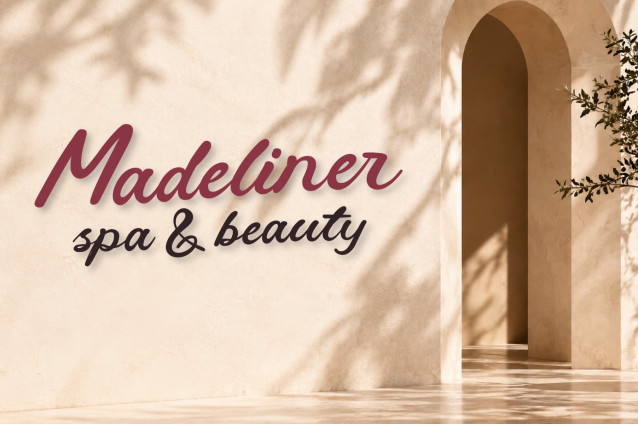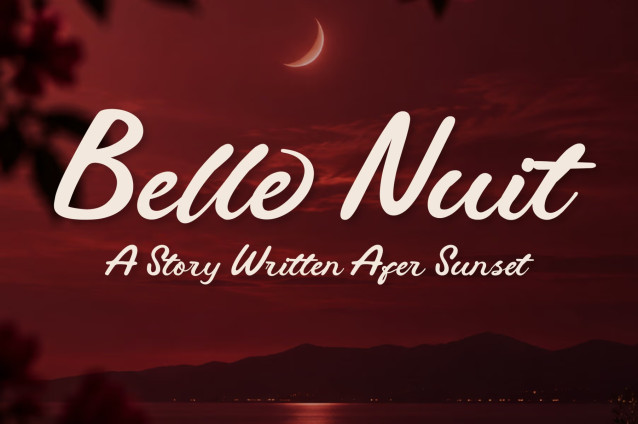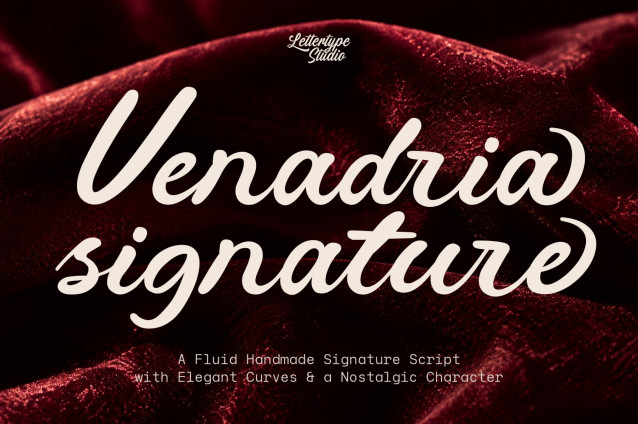
Venadria Signature Font
Venadria Signature Font captures the charm of expressive hand lettering through fluid curves, organic strokes, and naturally connected forms. Its retro-inspired character creates a sense of nostalgia without feeling dated, giving the typeface a refined personality with an authentic handmade touch.
Designed to move naturally across words, Venadria features graceful connections, expressive letterforms, stylistic alternates, and ligatures that allow designers to create more varied and personal compositions. The result is a script that feels polished enough for premium branding while maintaining the spontaneity of handwritten lettering.
From signature logos and fashion identities to beauty packaging, invitations, editorial artwork, and social media graphics, Venadria adapts easily across both elegant and expressive applications. Its distinctive rhythm makes it especially effective when typography needs to feel personal, memorable, and beautifully handcrafted.